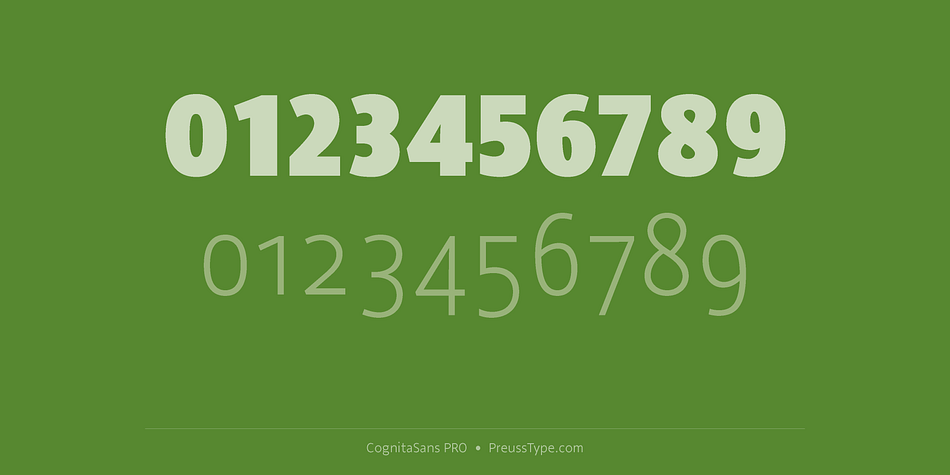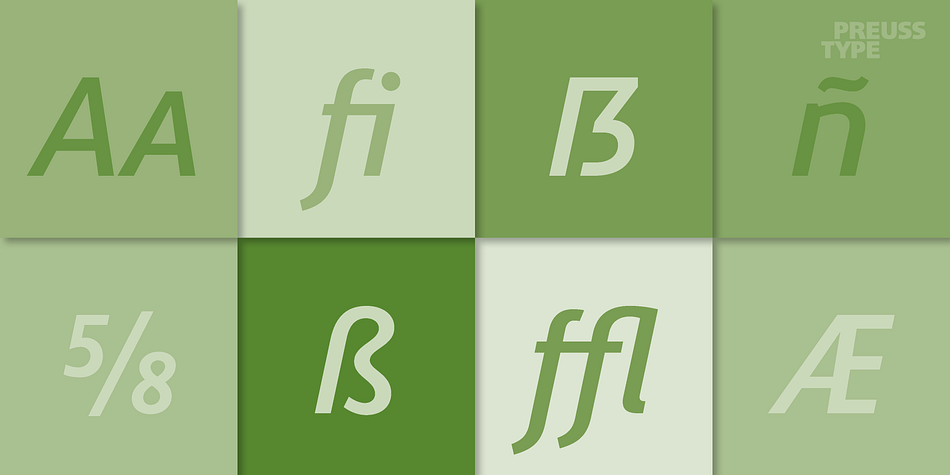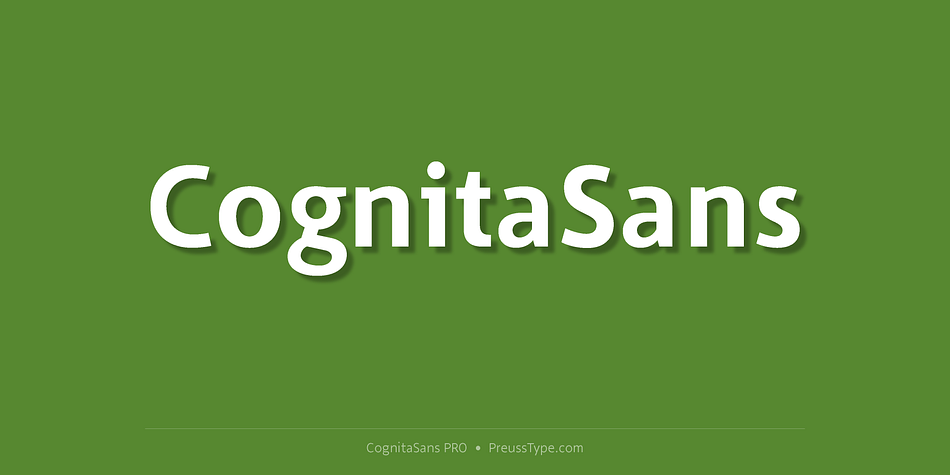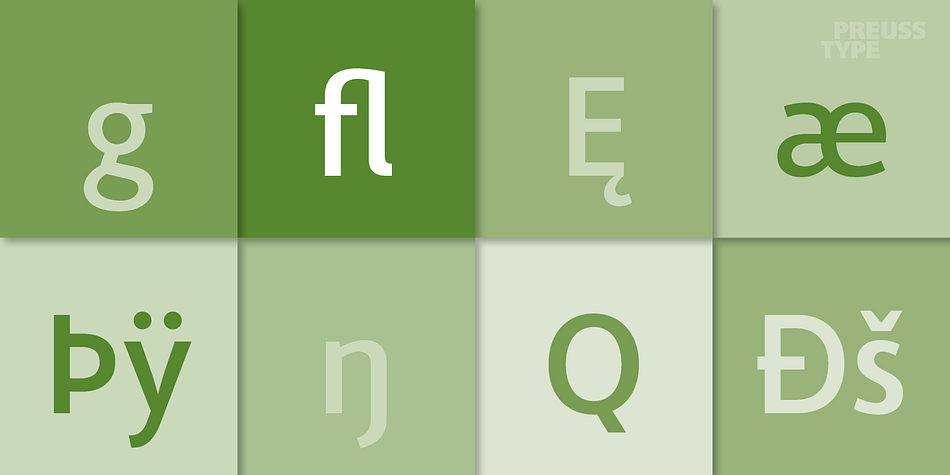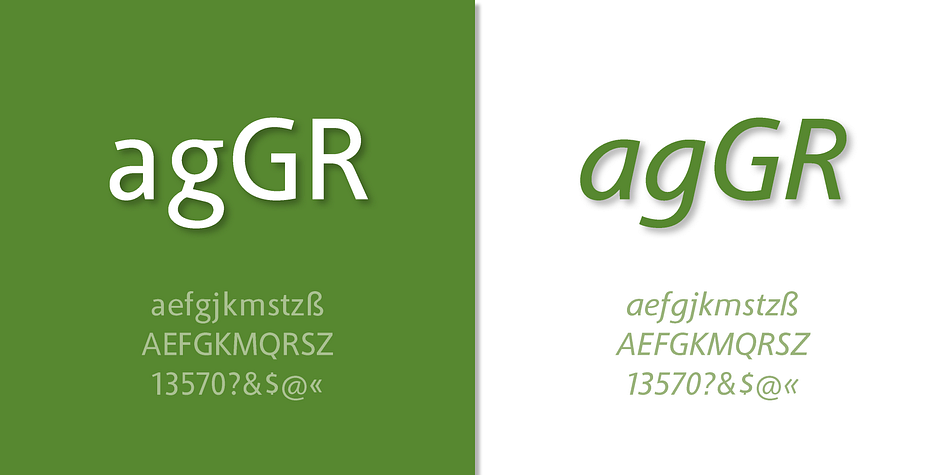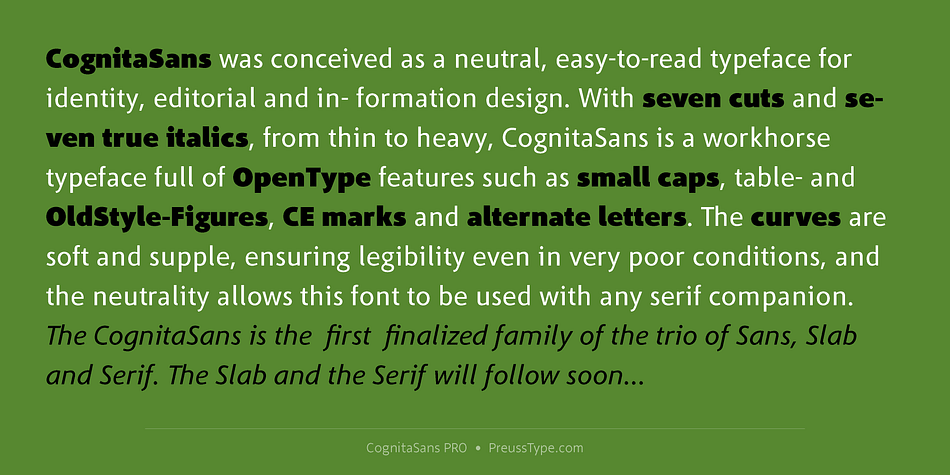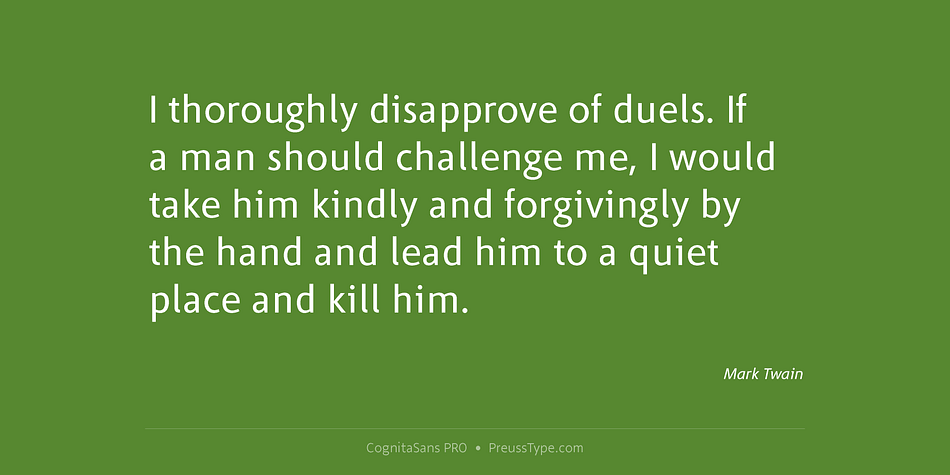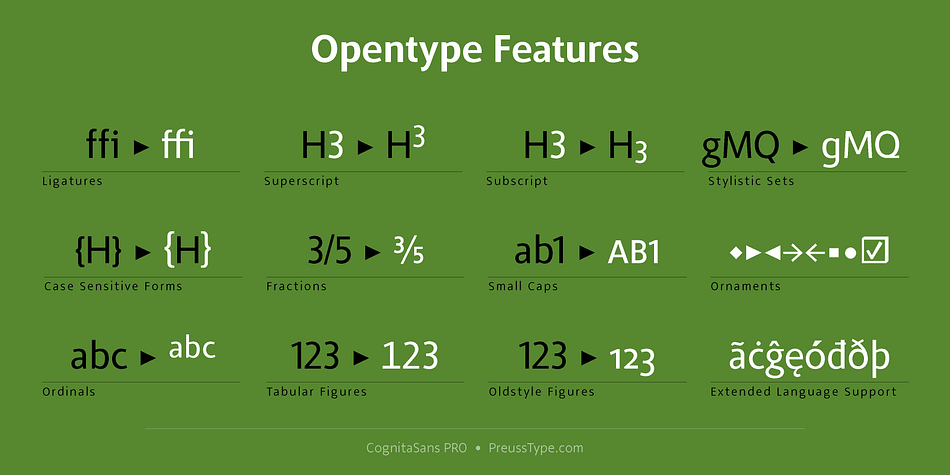
CognitaSans PRO is a sans serif font family. This typeface has fourteen styles and was published by preussTYPE.
CognitaSans was conceived as a neutral, easy-to-read typeface for identity, editorial and in- formation design. With seven cuts and seven true italics, from thin to heavy, CognitaSans is a workhorse typeface full of OpenType features such as small caps, table- and OldStyle-Figures, CE marks and alternate letters. The curves are soft and supple, ensuring legibility even in very poor conditions, and the neutrality allows this font to be used with any serif companion.
The CognitaSans is the first finalized family of the trio of Sans, Slab and Serif. The Slab and the Serif will follow soon.